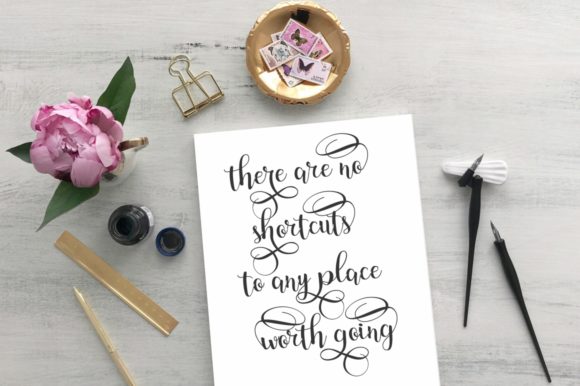
Harmony Font
About Harmony Font
Harmony is a captivating and charming handwritten font that exudes a sense of sweetness and grace. With its delicate strokes and varying baseline, Harmony adds a touch of artistry and elegance to any design project. This versatile font is perfect for expressing heartfelt emotions and creating a warm and welcoming atmosphere.
The smooth lines and exquisite glyphs of Harmony make it a wonderful choice for thank you cards, where each word appears as though it was lovingly written by hand. Its gentle curves and flowing letterforms create a sense of authenticity and sincerity, making recipients feel truly appreciated and cherished.
When it comes to birthday invitations, Harmony adds a delightful and playful touch to the celebration. Its unique and artistic flair sets the tone for a joyous gathering, inviting friends and loved ones to join in the festivities with enthusiasm.
For wedding invitations, Harmony shines with its romantic and timeless appeal. Its delicate letterforms create an air of sophistication and elegance, setting the perfect mood for a memorable celebration of love. Whether used for traditional or modern wedding designs, Harmony adds a touch of magic and charm to the occasion, leaving a lasting impression on couples and guests alike.
In the realm of branding and logos, Harmony brings a sense of personality and character to any business or project. Its handwritten touch creates a friendly and approachable identity, making it ideal for boutique businesses, creative ventures, and artisanal brands.
Harmony’s versatility extends to a wide range of designs, making it suitable for various occasions and projects. From greeting cards to social media posts, this font elevates the visual presentation and adds a touch of artistry to every message.
The stunning alternates and swashes, easily accessible through PUA encoding, offer endless creative possibilities. You can add flourishes and decorative elements to make your designs even more unique and personalized, showcasing your creativity and attention to detail.
In conclusion, Harmony is a sweet and delicate handwritten font that enchants with its artistic flair and timeless appeal. Its smooth lines, varying baseline, and gorgeous glyphs make it a versatile choice for a wide range of designs, including thank you cards, birthday invitations, wedding invitations, logos, and more. Fall in love with Harmony’s charm and let it add a heartfelt and handwritten touch to your creative projects, leaving a lasting impression on all who encounter its beauty.